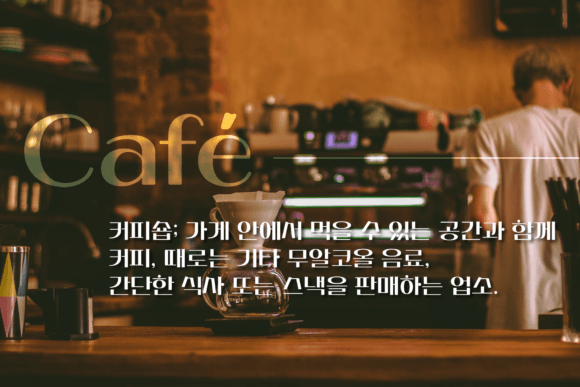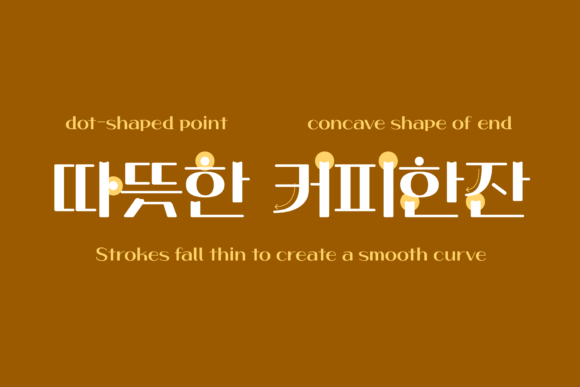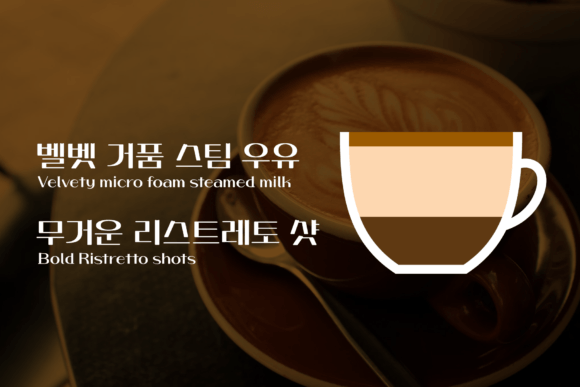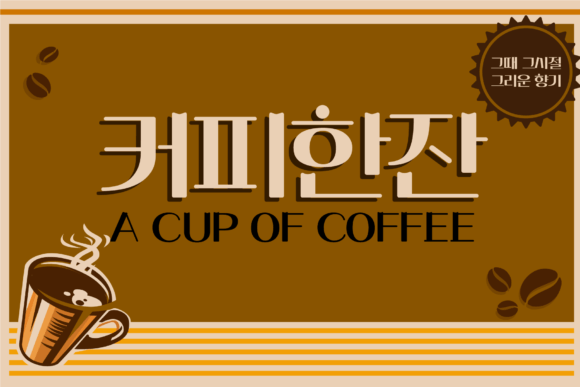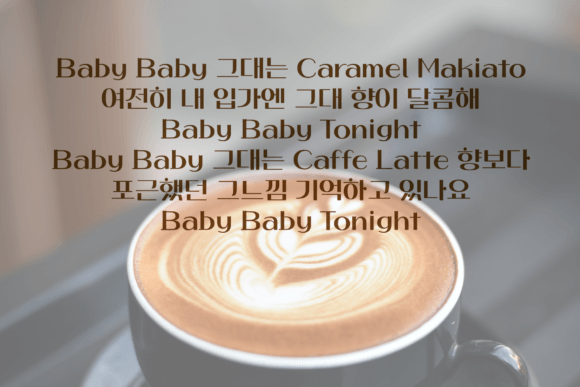
Introducing Flatwhite Kr Font: A Retro-Inspired Headline Typeface
Are you a designer or crafter looking for a unique and stylish font to elevate your projects? Look no further than Flatwhite Kr Font, a headline typeface that exudes a retro sensibility. This modern font is designed to add a touch of nostalgia to your designs, making it perfect for projects that require a distinctive and eye-catching look.
Retro Feel and Unique Characteristics
Flatwhite Kr Font boasts a distinctive retro feel, thanks to its concave first projection of the vowel and dot shape. These features add a touch of classic charm to the font, making it stand out from more modern and sleek typefaces. The dot shape seen in the initial consonants and the thin ending strokes of ‘ㄱ’, ‘ㅅ’, and ‘ㅈ’ create a flowing curve that adds to the font’s nostalgic appeal.
Design Features and Benefits
One of the key benefits of Flatwhite Kr Font is its full module design. This means that the font is complete and comprehensive, making it easy to use for a wide range of projects. However, what sets it apart is the large contrast of strokes, which creates a cool and airy feel. The inner space created by this contrast gives the font a sense of openness and sophistication, making it perfect for headlines, titles, and other display text.
Flatwhite Kr Font is a versatile font that is perfect for a wide range of design projects. Whether you’re working on a branding project, creating a poster or flyer, or designing a website, this font is sure to make a statement. Its unique retro feel and flowing curves make it perfect for:
- Headlines and titles: Add a touch of nostalgia to your headlines and titles with Flatwhite Kr Font.
- Branding: Create a distinctive and memorable brand identity with this unique font.
- Posters and flyers: Add a touch of retro charm to your posters and flyers.
- Web design: Use Flatwhite Kr Font to create eye-catching and memorable website headers and titles.
Flatwhite Kr Font is a unique and stylish headline typeface that is perfect for designers and crafters looking to add a touch of retro charm to their projects. With its distinctive concave first projection of the vowel and dot shape, flowing curves, and large contrast of strokes, this font is sure to make a statement. Whether you’re working on a branding project, creating a poster or flyer, or designing a website, Flatwhite Kr Font is a versatile and eye-catching choice.